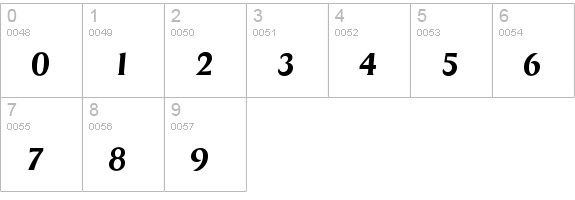
Dragon-DemiBoldIta Font Details
Introducing Dragon-DemiBoldIta font, a striking and elegant typeface that exudes power and sophistication. With its bold yet sleek design, this font is perfect for creating eye-catching headings, titles, and logos. The italicized version adds a touch of flair and modernity to any design project. What sets Dragon-DemiBoldIta font apart is not only its stunning aesthetic appeal but also the fact that it is available for free download at FontsMarket.com. This means that you can easily access and use this premium font for your personal or commercial projects without any cost. Whether you're working on a branding project, poster design, or website layout, Dragon-DemiBoldIta font is sure to make a bold statement and elevate your design to the next level. Don't miss out on this opportunity to enhance your creative work with this exceptional font that combines style, versatility, and affordability. Download Dragon-DemiBoldIta font today and unleash your creativity!